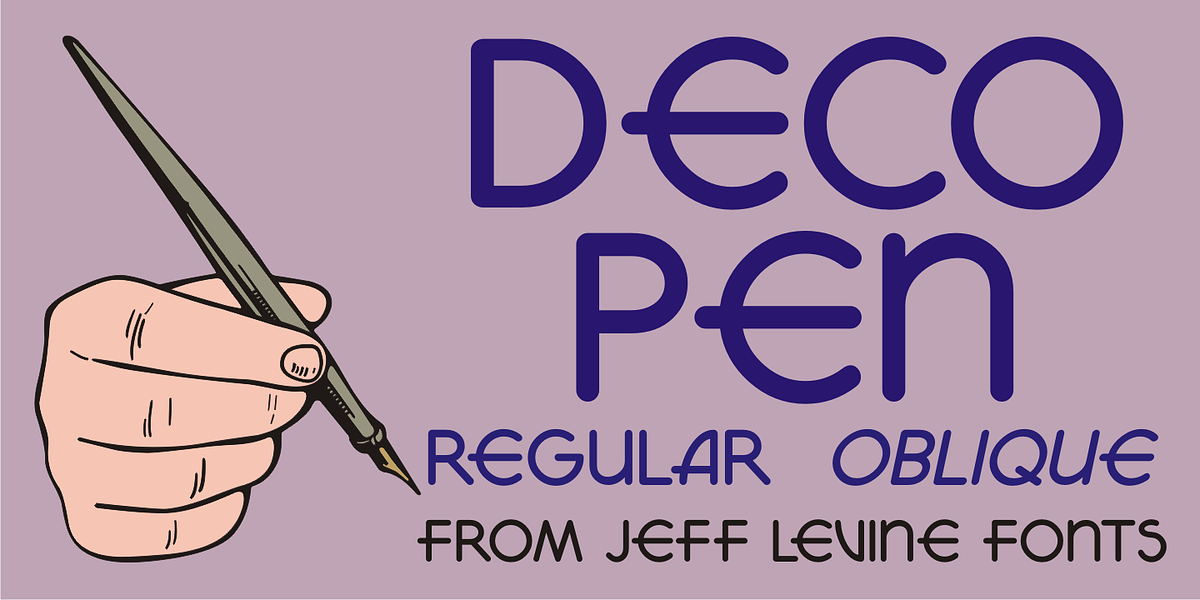
Deco Pen JNL
Hand lettering found across the sheet music cover of 1931’s “Bend Down, Sister” [from the Eddie Cantor film “Palmy Days”] covered a couple of varying Art Deco styles; both made with a round-tipped pen nib.
Deco Pen JNL combines the best of both styles into one design that's available in both regular and oblique versions.